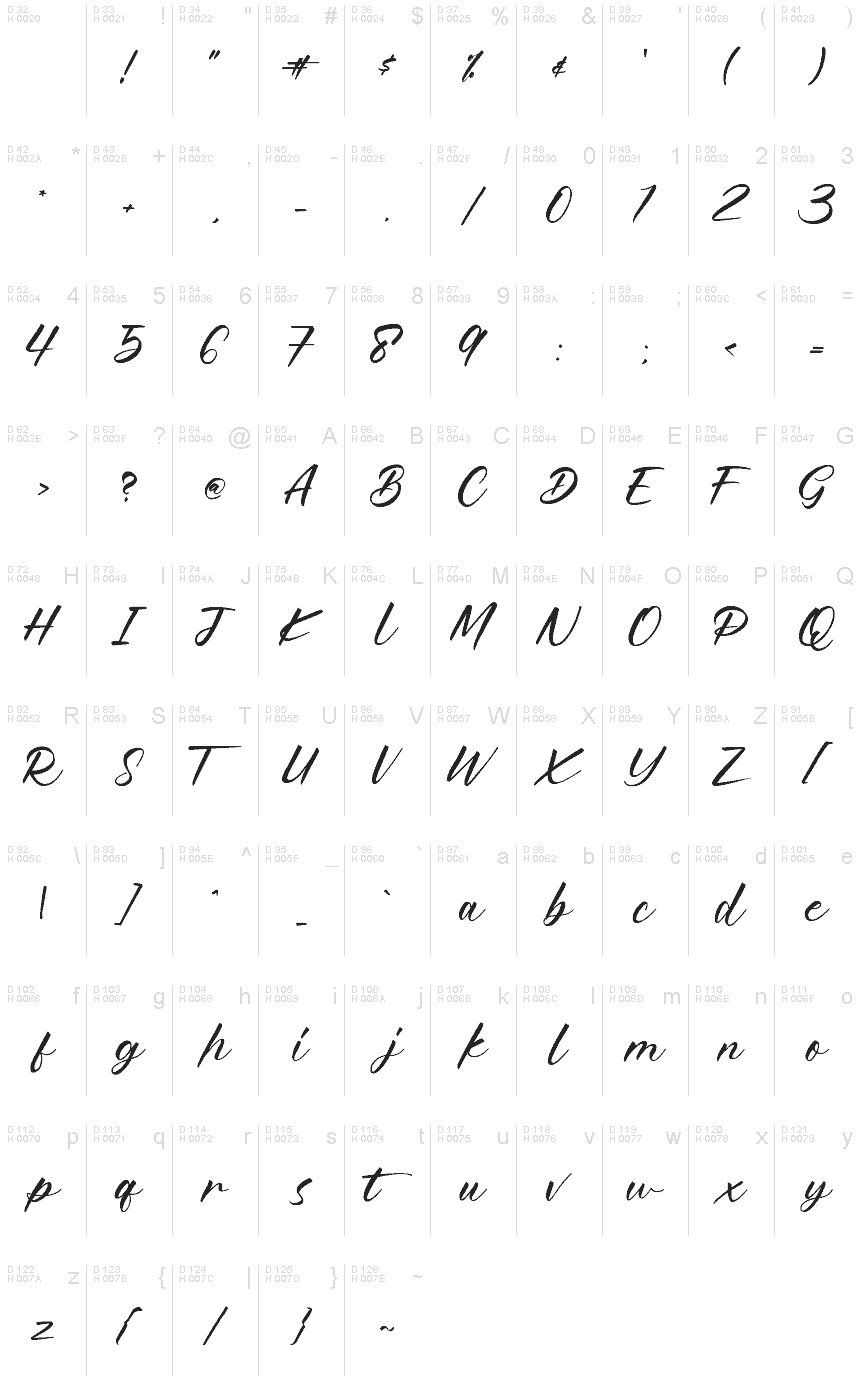
Honess
Honess font by zamjump is a free handwritten font that exudes casual sophistication and modern elegance. With its fluidity and expressive italic style, it resembles a signature, offering authenticity without losing its other professional aspects.
From invitation cards, posters, branding projects, and magazines to advertisements, book covers, TV shows; the font fits all. It’ll work great also on any product design or even with textile design projects.